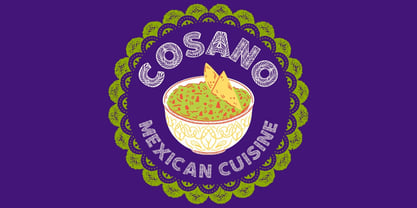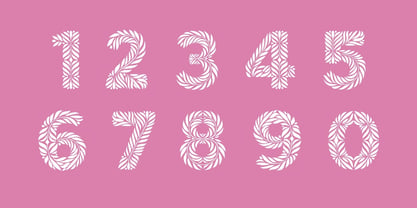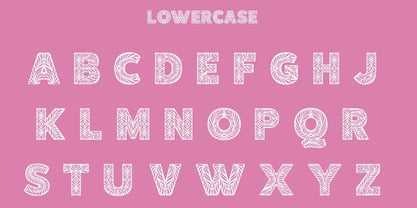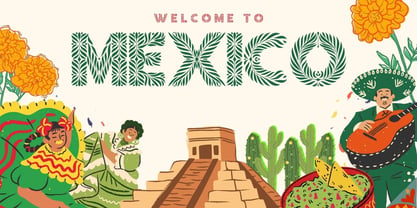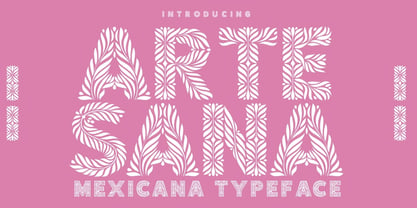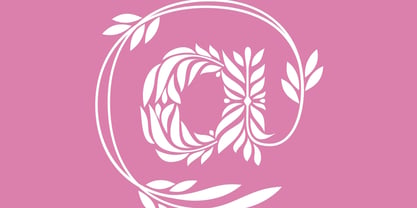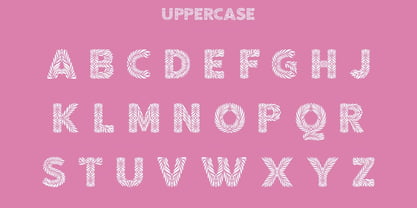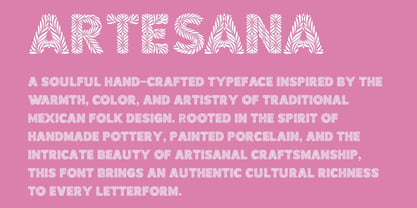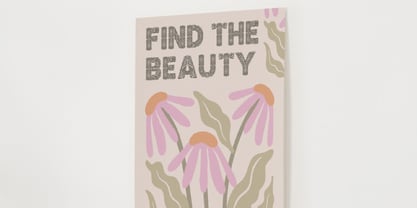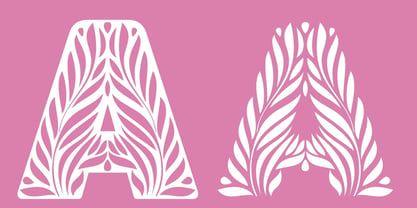
Artesana
La familia tipográfica Artesana fue diseñada por Igor Ovsyannykov y publicada por Hipfonts. Artesana contiene 1 estilos. Más información sobre esta familia
Artesana is a soulful hand-crafted typeface inspired by the warmth, color, and artistry of traditional Mexican folk design. Rooted in the spirit of handmade pottery, painted porcelain, and the intricate beauty of artisanal craftsmanship, this font brings an authentic cultural richness to every letterform. Organic curves, decorative strokes, and folk-inspired detailing give Artesana its unmistakable charm. Each character feels lovingly shaped by hand—capturing the essence of heritage crafts, festive patterns, and the expressive artistry found throughout Mexico’s vibrant visual culture.